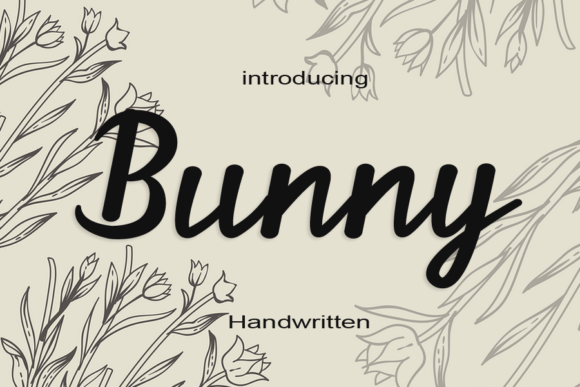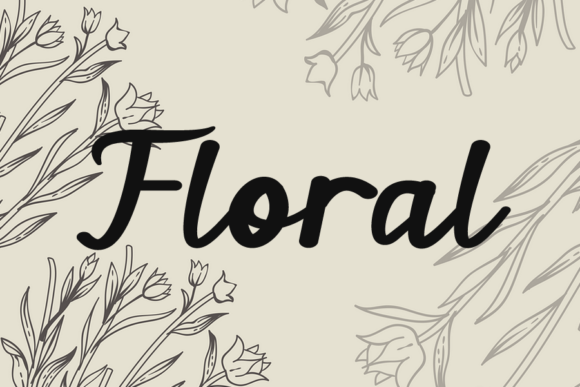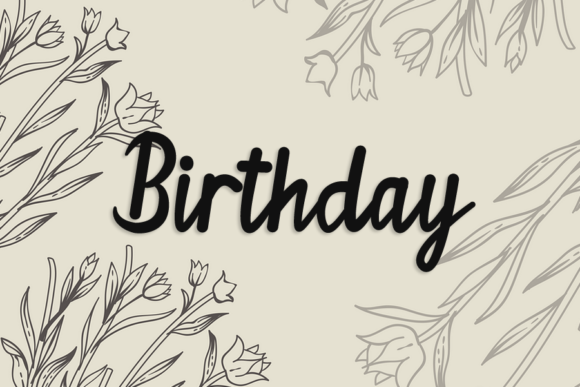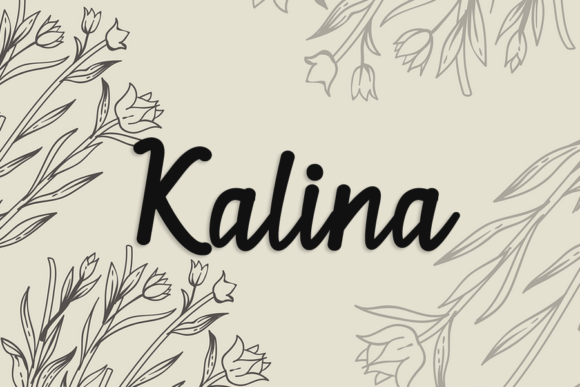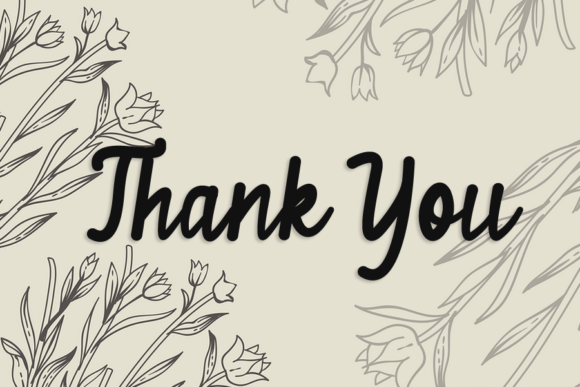
Bunny Font
About Bunny Font
“Bunny” sounds like a delightful and versatile handwritten font, ready to add a touch of delicacy and elegance to a variety of design projects. Let’s explore its potential further:
**Delicate and Elegant Design:**
With its delicate and elegant design, Bunny brings a refined and graceful aesthetic to your projects. The flowing script is likely to contribute to a sense of sophistication and charm, making it suitable for a range of creative endeavors.
**Well-Balanced Characters:**
The mention of well-balanced characters indicates that Bunny is crafted with attention to detail. This balance is crucial for ensuring readability and visual harmony in various design applications.
**Versatility Across Designs:**
The fact that Bunny matches a wide pool of designs suggests its versatility. Whether you’re working on formal documents, creative projects, or anything in between, Bunny is poised to adapt and enhance the visual appeal of your ideas.
**Creative Inspiration:**
The invitation to add Bunny to your most creative ideas implies that the font is designed to inspire and uplift your projects. Its flowing script may bring a sense of creativity and imagination, making it a valuable asset for design exploration.
Incorporating Bunny into your designs, be it for branding, invitations, stationery, or any creative project, may infuse them with a touch of elegance and charm. It sounds like a font that can effortlessly blend into various contexts, making your creations come alive with a unique and delightful flair.